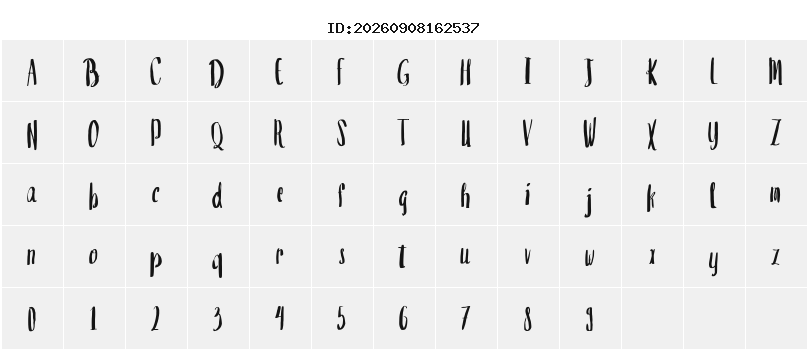
valencia sans Preview
• Font Name: valencia sans
• Full Font Name: valencia sans
About valencia sans.ttf
valencia sans.ttf is a modern, elegant sans-serif font designed for ultimate readability and visual harmony. Perfect for branding, headlines, web design, and print materials.